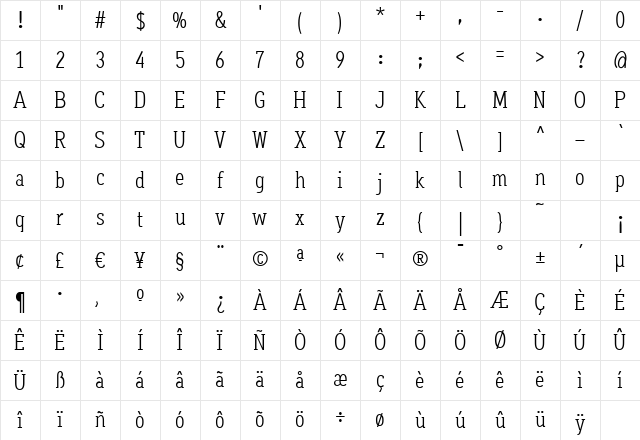
Aaux OfficeRegular Regular
Design Context for Aaux OfficeRegular
Aaux OfficeRegular is a composed and adaptable typeface that performs quietly and consistently across a wide range of design contexts.
Pro Tip: Use Aaux OfficeRegular in both headline and body roles to test its range before committing to a single application.